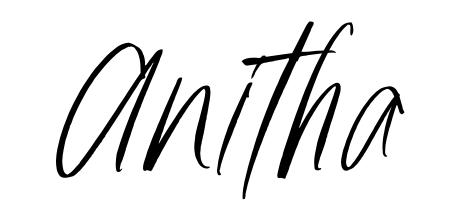
Anitha
Anitha: A flowing script font, Anitha dances across the page with elegant curves and graceful swoops. Its delicate strokes possess a timeless charm, hinting at vintage elegance while maintaining a modern appeal. Ideal for invitations, logos, and anything requiring a touch of sophisticated handwriting.